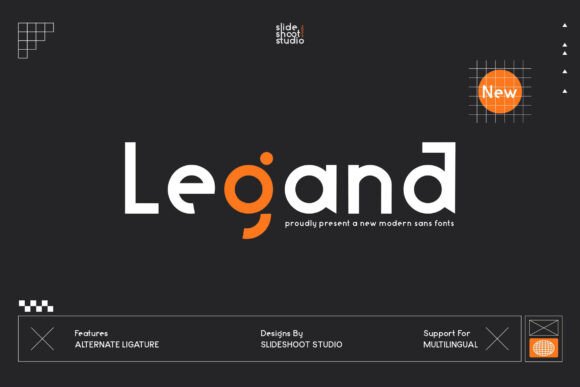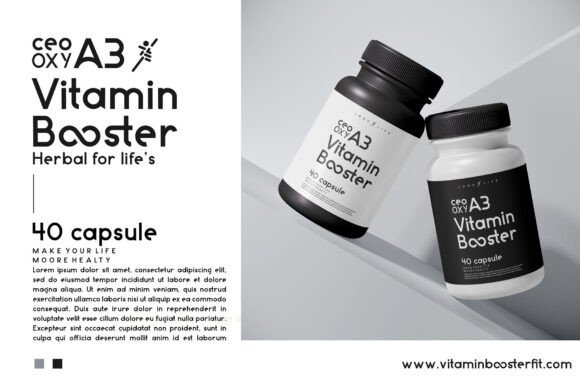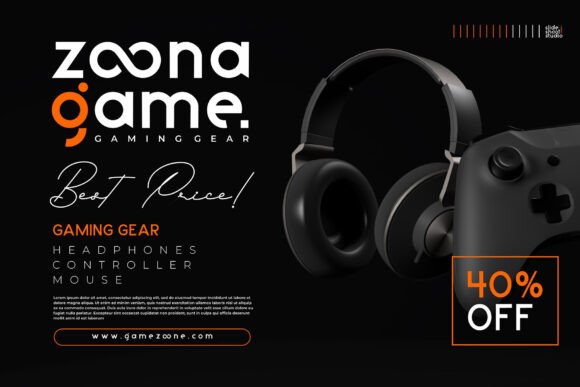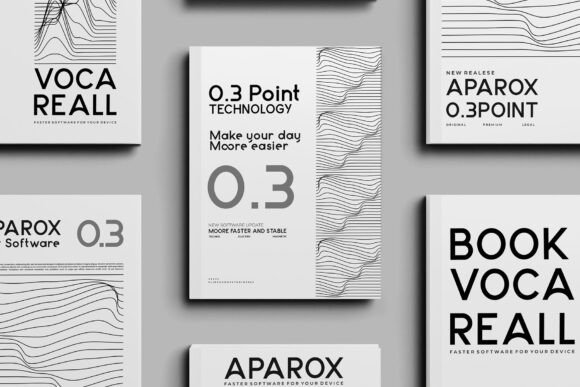
Legand Font: Modern Sans Serif for Logo Design & Branding
About the Legand Font
From logos to headlines, the Legand Font is the perfect choice for making a lasting impression. Legand is a sans serif font with a modern, elegant, and futuristic look. This font is perfect for invitation card designs, company logos, movie titles, movie names, business cards, book titles, brand names, and various other designs. Its stylish alterations and ligatures make this font a perfect partner for any project.
Legand’s strong, geometric forms excel in headlines, logos, and short, impactful text—think posters or branding for tech companies or high-end products. It’s less suitable for body copy or UI elements where readability over long passages is paramount. Its sleekness might overwhelm smaller text sizes.
Pairing Legand effectively depends on the desired balance. For a modern, sophisticated feel, consider pairing it with a clean, neutral sans-serif like Lato for body text. To inject a touch of classic elegance, a subtle serif such as Garamond would complement its futuristic edge. Avoid overly playful or decorative fonts, as they may clash with Legand’s inherent seriousness.
Legand projects a bold, sophisticated, and undeniably modern personality. Brands aiming for a sense of innovation, high-quality, or technological advancement would find it particularly fitting.